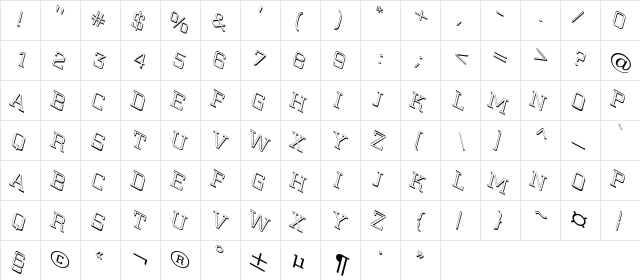
a_CityNovaTtlShTwLt Regular
Design Context for a_CityNovaTtlShTwLt Typeface
a_CityNovaTtlShTwLt takes a measured approach to typography — its balanced proportions and neutral character make it a reliable workhorse for both digital and print work.